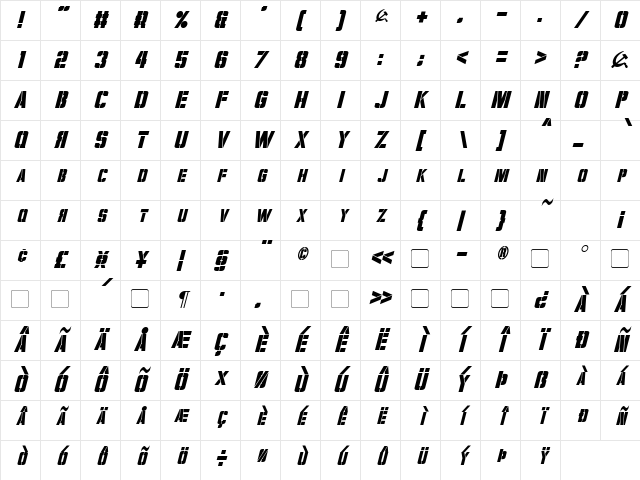
Volkoff Italic
Foundry: Pixel Sagas
Designer: Neale Davidson
Design Context for Volkoff
Volkoff is a composed and adaptable typeface that performs quietly and consistently across a wide range of design contexts. The slanted form adds forward momentum and visual energy.
Pro Tip: Use Volkoff for emphasis, pull quotes, and subheadings where its slanted energy can add rhythm to the layout.